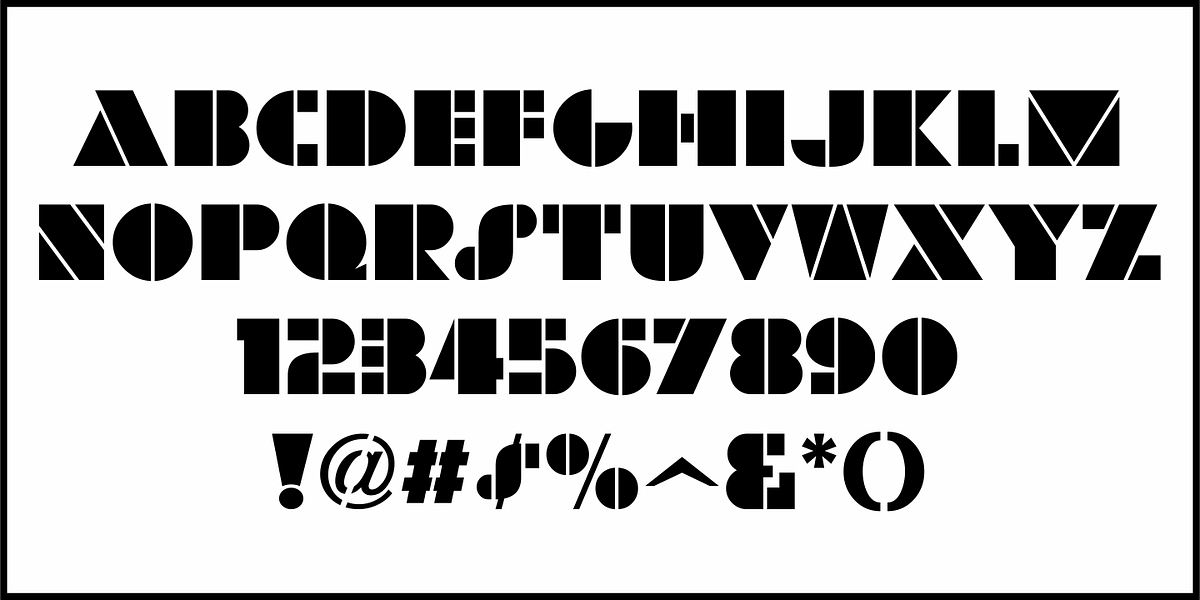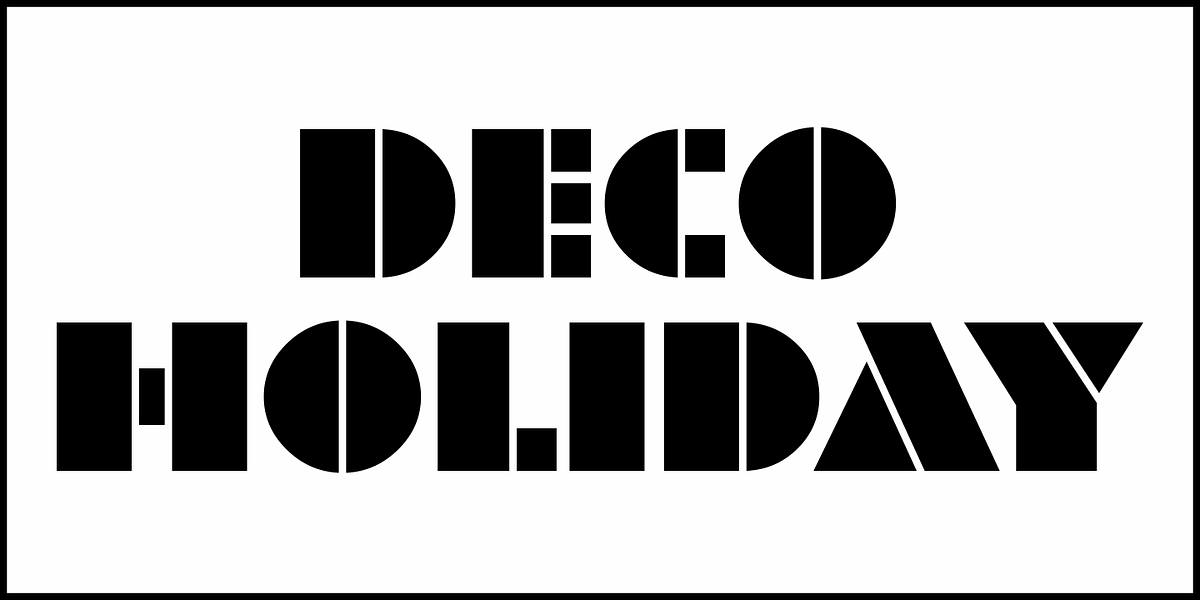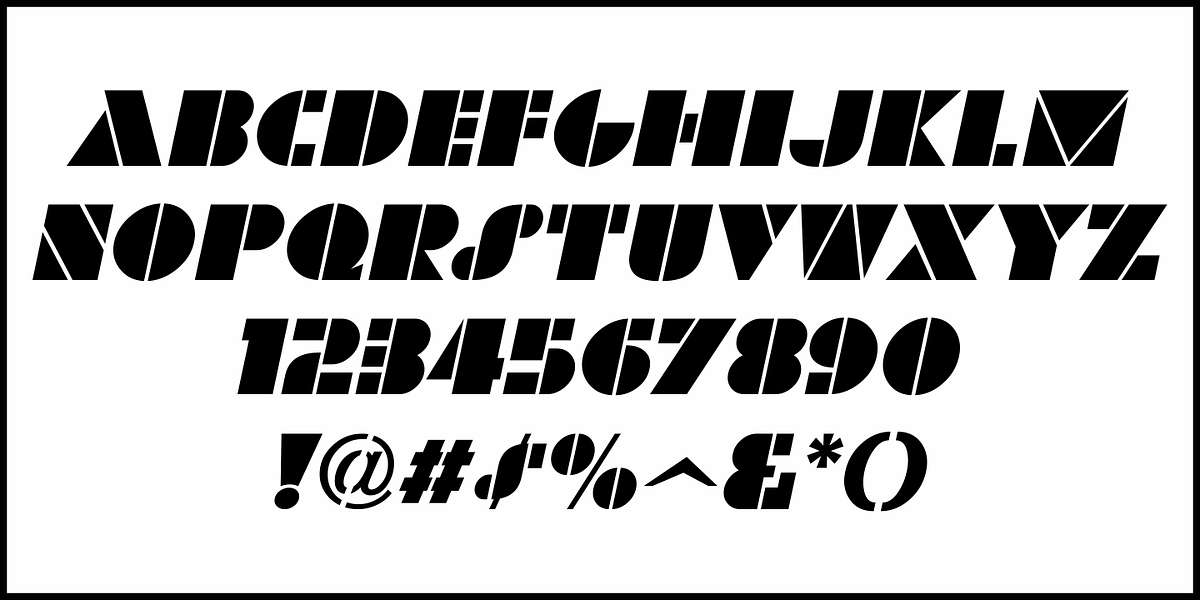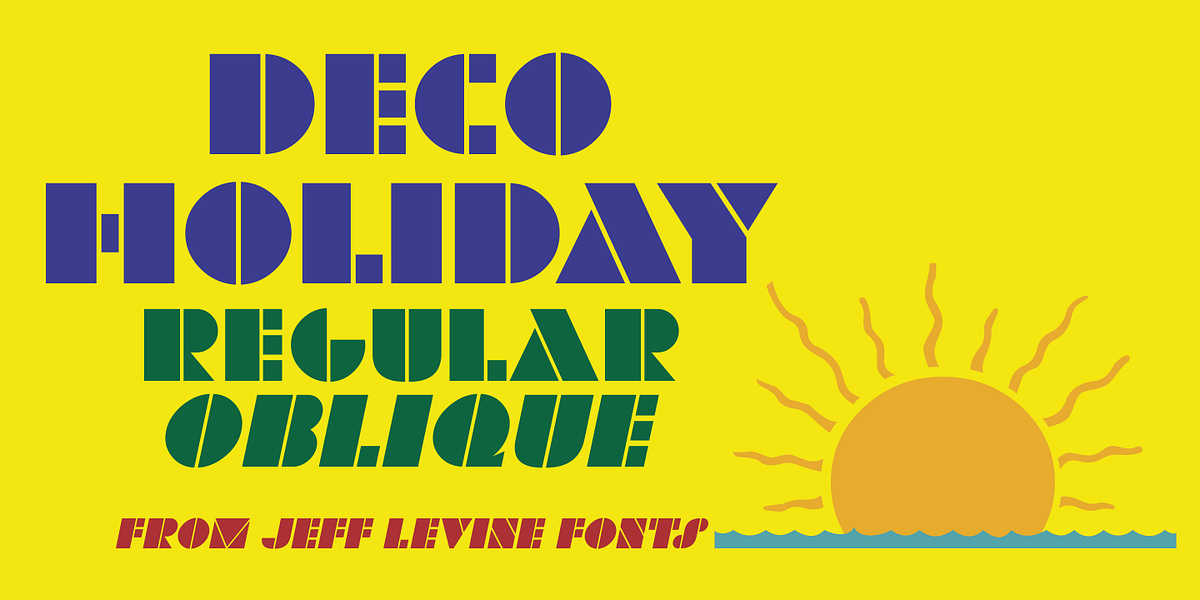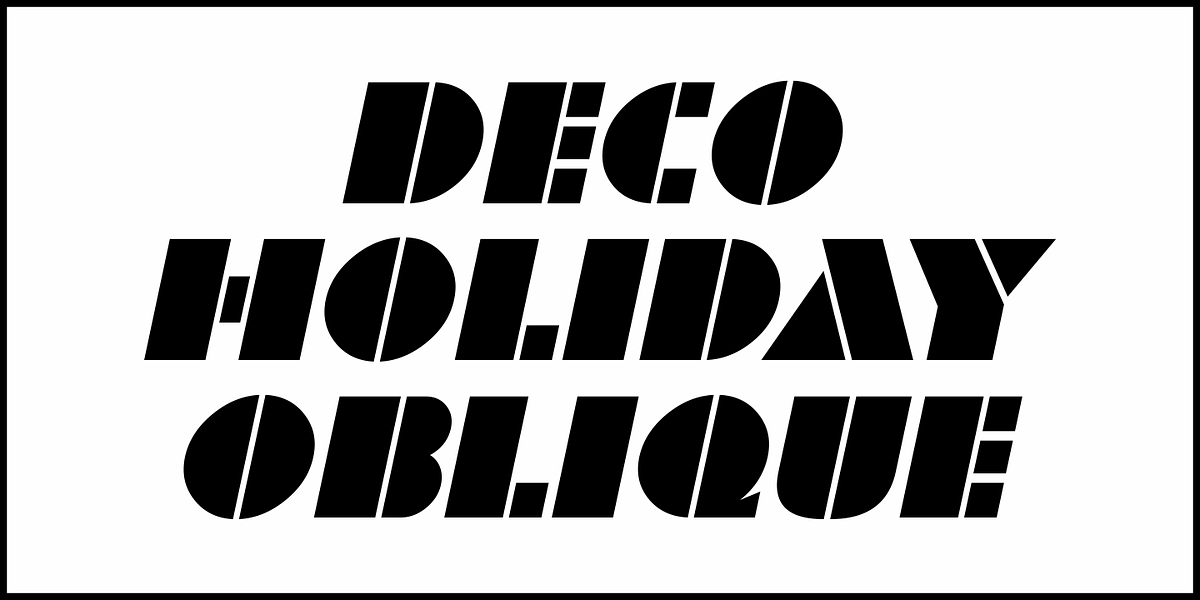
Deco Holiday JNL
A hand lettered Art Deco ‘stencil’ design used in various ads for “Holiday” and other Pathé films was found in the July 22, 1930 issue of “The Film Daily”.
Similar in style to Futura Black and other like designs, it is now available as Deco Holiday JNL in both regular and oblique versions.